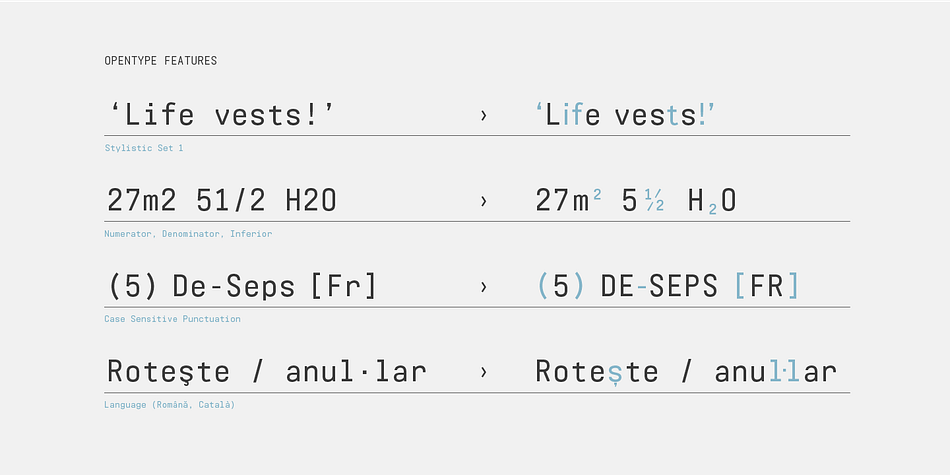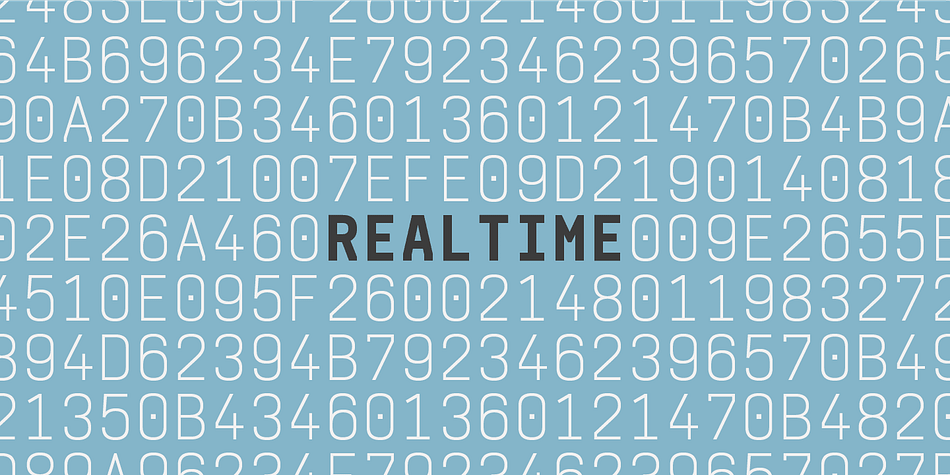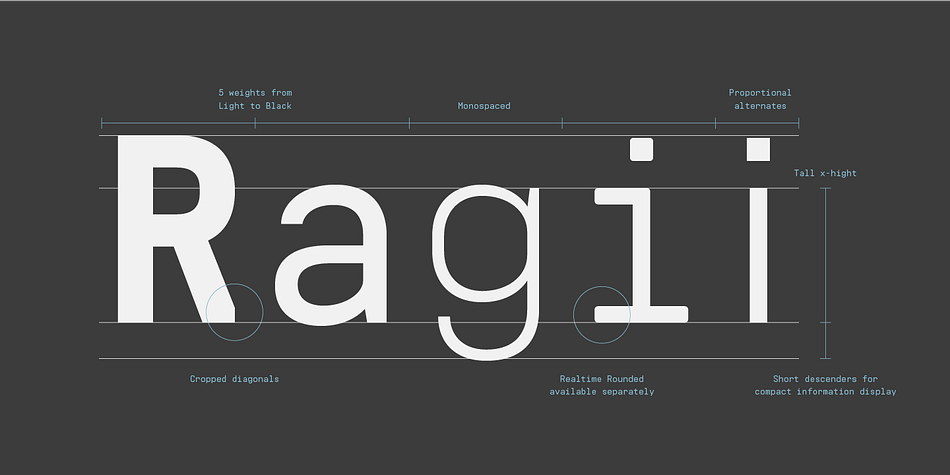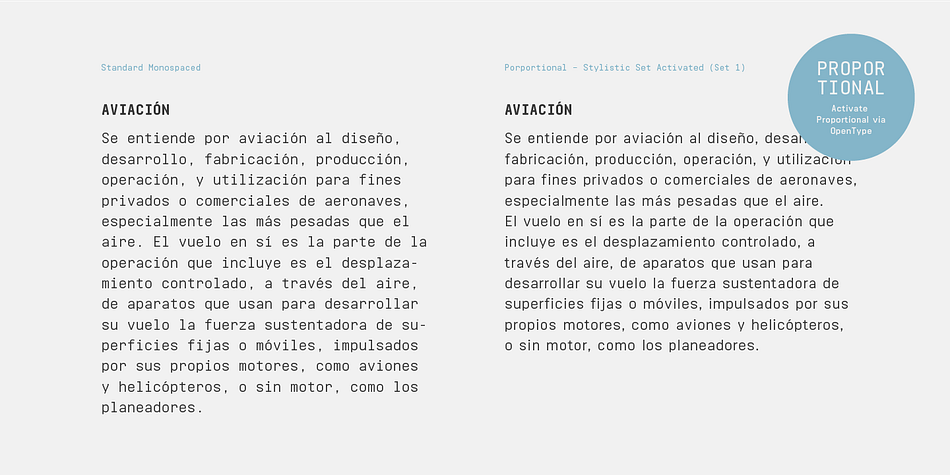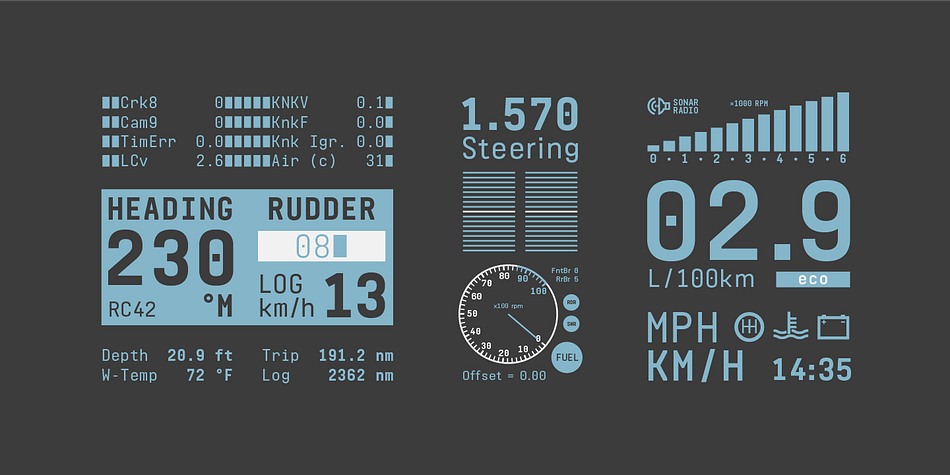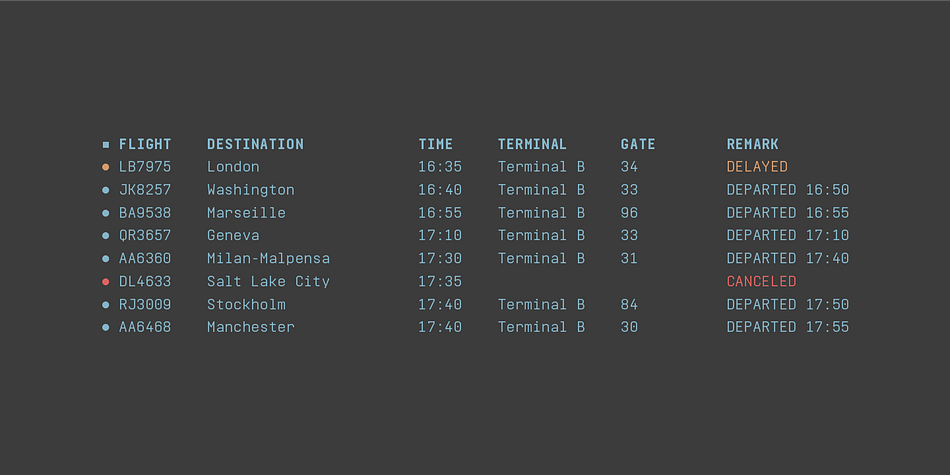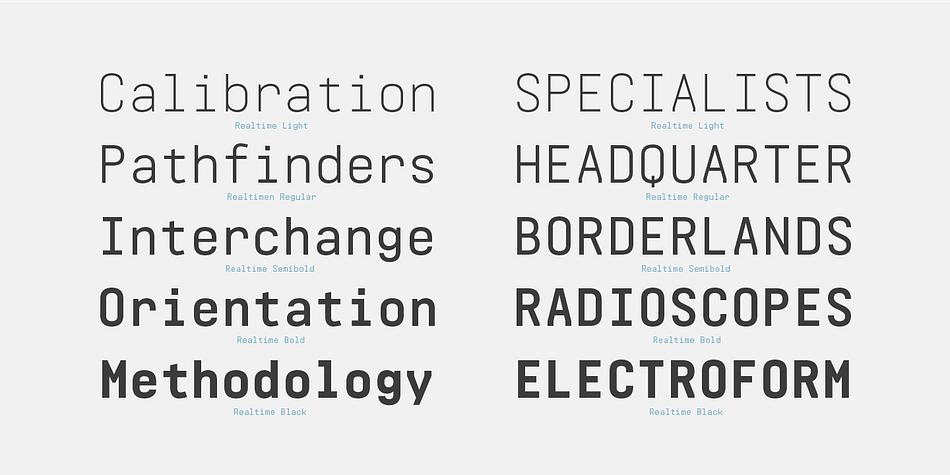
Designed by Juri Zaech, Realtime is a sans serif font family. This typeface has six styles and was published by Juri Zaech.
Information displays have an aesthetic of their own. Functional design where transmission of information is key — and best in real time. The Realtime typeface is not meant to recreate the appearance of those applications, instead it takes inspiration from them. The result is a technical yet friendly design with details that serve function and visual impact alike. As a monospaced typeface it lends itself to tabular designs, sturdy columns and tidy layouts. Nevertheless Realtime comes with a feature for setting continuous text — a proportional design employable through OpenType — it further comes in five weights, from light to black, and with a character set that covers over 200 latin languages.
A soft version of Realtime is available separately: Realtime Rounded. Its soft edges apply warmth to the otherwise rather technical appearance.